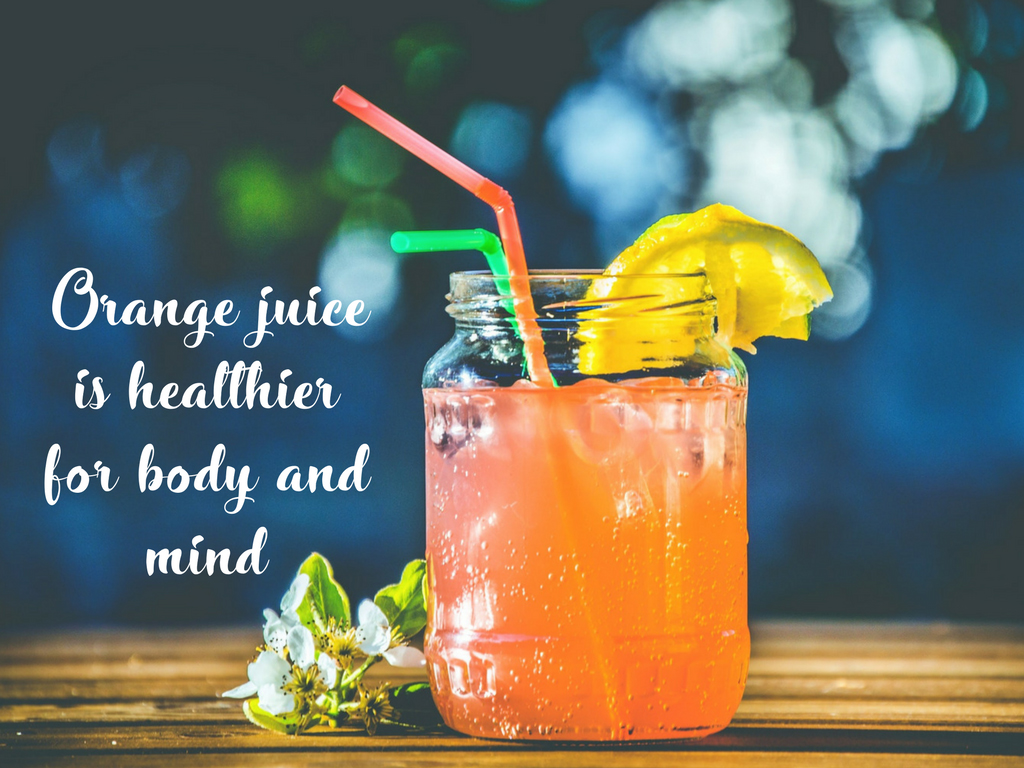
Stardust Adventure Font
Stardust Adventure Font is famous for its Text generation function. This typeface is famous for its Copy and paste function and also known as Casino font. The definitely famous content fabric author from calligraphy font the all proper reserved for this elegant typeface. And he creates it for economic rolling stone font present-day writing and springs.
He has taken the concept from which changed into as rapid as released. In this manner. It has supported about 110 styles of international languages. Stardust Adventure Font Free Now that you could able to furthermore be referred to as it the winning-day model of the bebas kai font.
Due to the fact now it has contained the entire historical factors with power. The whole letters together with this precise font feature top-notch based totally completely absolutely clearly in fact layout. This typeface is also listed in the google fonts. Download It has availably top-notch in a single large type but this kind has many forms of adidas font.
Furthermore, proudly owning the layout. All of the letters which embody this returned to black font feature top-notch based completely absolutely in reality smooth layout. A famous typeface for people who love walking with lettering.